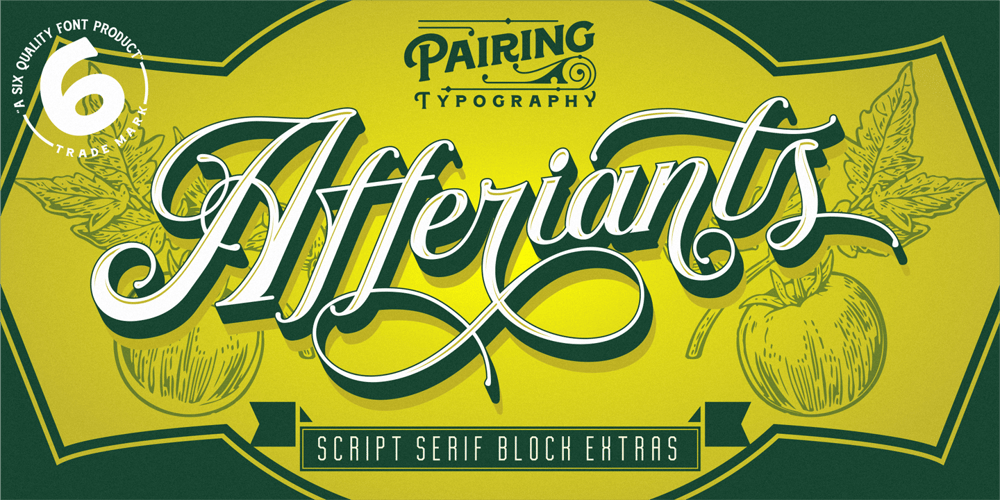
Afferiants Font Family was designed by Ferry Septian and published by Uncurve. Afferiants contains 6 styles and family package options. Afferiants is pairing authentic font collection.Thats already match up and to be use together.Afferiant support ligatures and alternates character to make everything awesome design. This Collection best use for vintage or modern design, logo, poster, advertising, branding, invitation, postcard, and more.The extras include badge, catchword and ribbon. Its make you more easier to combine.